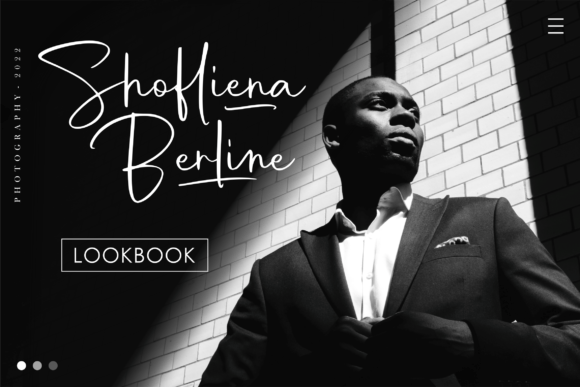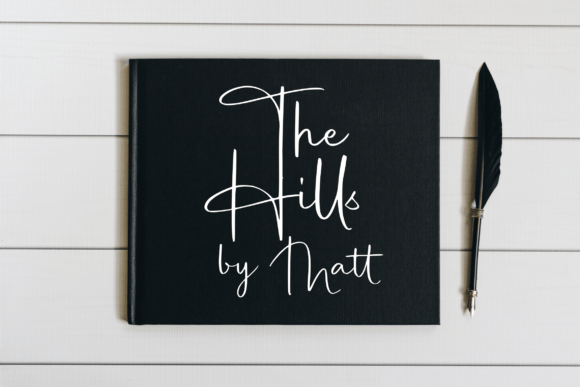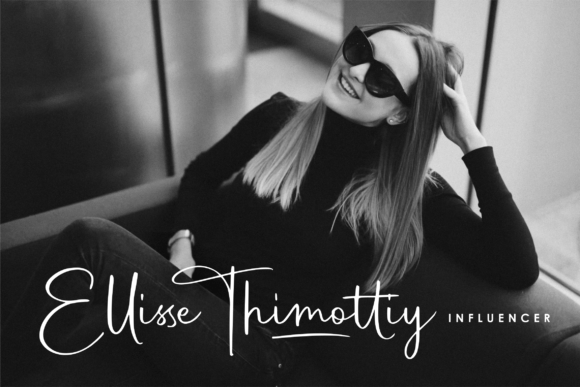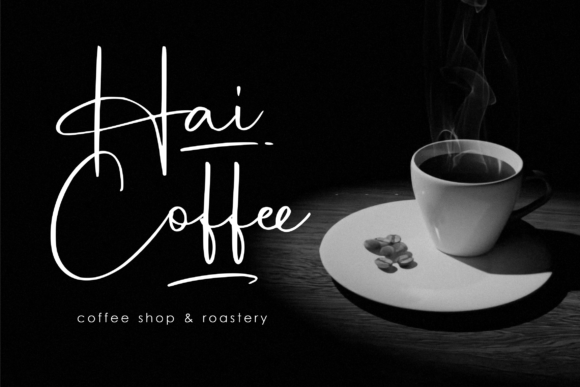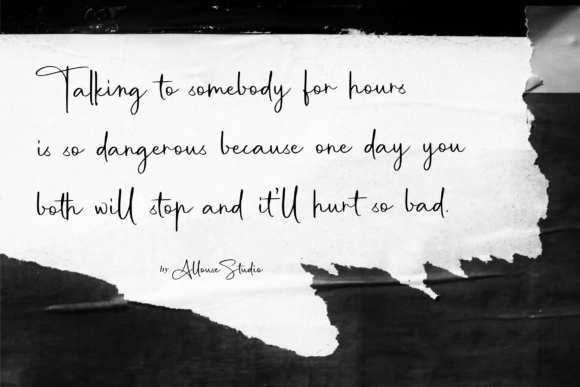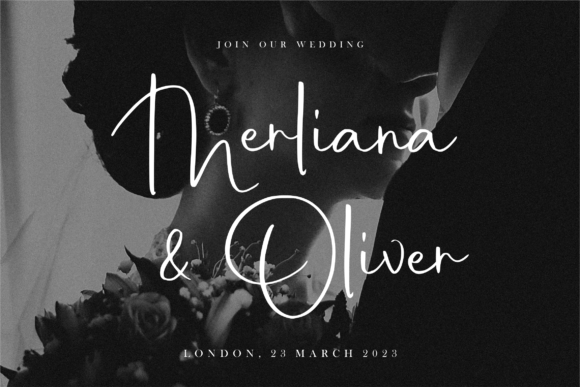
The Adelliatte Font: A Handwritten Signature Gem
I’ll never forget the time I was working on a branding project for a small business, and I just couldn’t find the right font to capture their playful yet elegant vibe. That’s when I stumbled upon Adelliatte, a beautiful handwritten signature font that instantly became my go-to. In this article, I’ll share my love for Adelliatte, its features, and how to make the most of it in your designs.
An Honest Review of Adelliatte
What I Love About Adelliatte ✨
- 💫 Unique and elegant handwritten style, perfect for making a statement
- ✅ Highly versatile, suitable for various design projects, from product packaging to social media
- 🎨 Beautifully crafted to add a touch of sophistication and whimsy to any design
- 📚 Extensive character set, including support for multiple languages
- ⚠️ Some users might find the font a bit too ornate for very casual or playful designs
- ⚠️ Limited availability of condensed or italic versions, which might limit its use in certain layouts
The Story Behind Adelliatte
Adelliatte was inspired by the art of traditional calligraphy and the elegance of handwritten signatures. Its creator aimed to craft a font that would bring a touch of sophistication and whimsy to any design, while still being highly legible and versatile.
| Font Name | Adelliatte Font |
| What is Adelliatte best used for? | Adelliatte is perfect for product packaging, branding projects, magazines, social media, weddings, or just used to express words above the background. |
| Is Adelliatte suitable for body text? | While Adelliatte is beautiful, it’s more suited for headings and titles due to its ornate nature. For body text, a simpler font might be more readable. |
| Does Adelliatte support multiple languages? | Yes, Adelliatte has an extensive character set that supports multiple languages. |